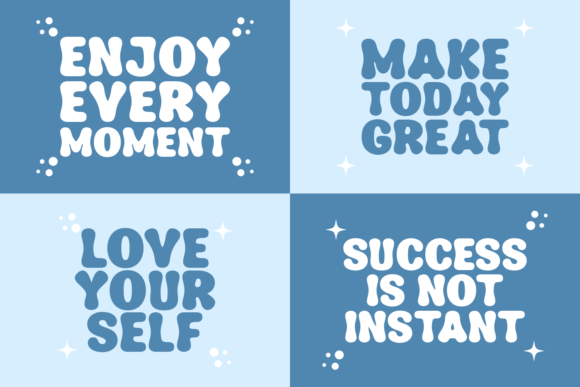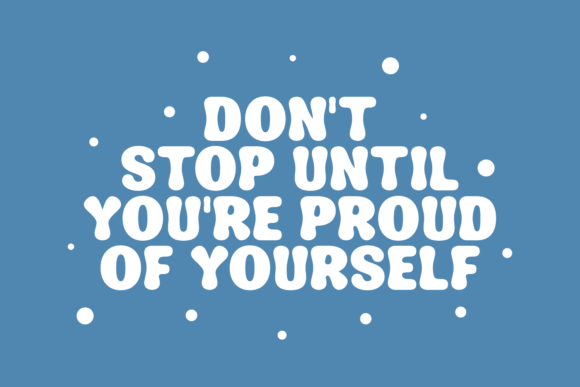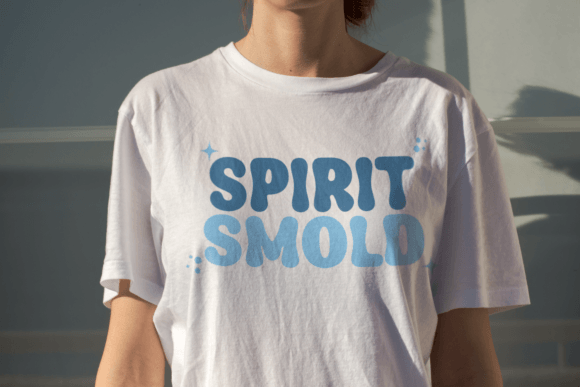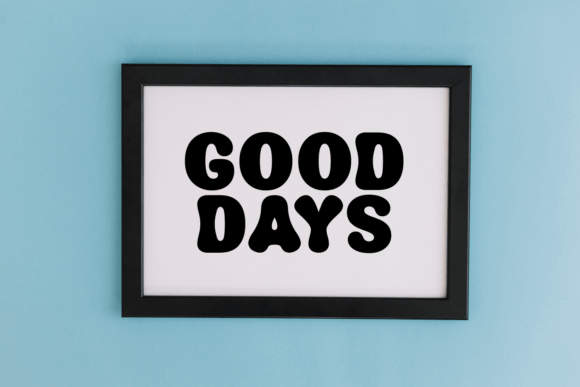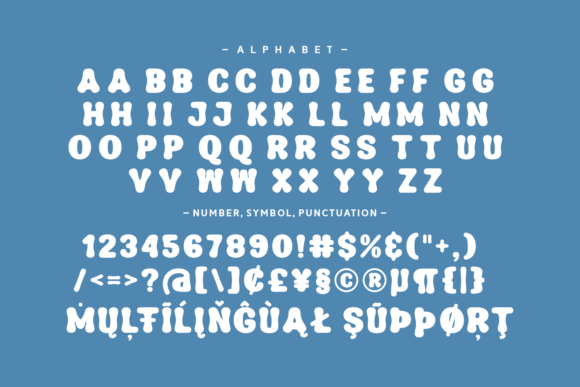
Discover the Joy of Becko Smold Font
You know that moment when you’re browsing through fonts and you stumble upon one that makes you smile? For designers, it’s a treasure hunt that can lead to some amazing creative breakthroughs. And that’s exactly what happened when we discovered the Becko Smold Font – a playful display font that’s sure to bring a touch of whimsy to any project.
Becko Smold Font is a delightful, chubby-looking font that’s perfect for adding a personal touch to branding, advertising, and more. Its versatility makes it an invaluable asset for designers, allowing them to create unique and eye-catching designs that stand out from the crowd. With its wide range of applications, from book covers to website headers, Becko Smold Font is a valuable addition to any designer’s toolkit.
- Unique Characteristics: Distinctive, hand-drawn style with intricate details and subtle texture, ideal for creative and artistic applications
Becko Smold Font Review
Overall, I’m impressed with the unique charm of the Becko Smold Font. Here’s what I like about it:
- ✨ Beautifully hand-drawn feel, perfect for adding a touch of whimsy to designs.
- ✨ A wide range of characters, including punctuation and symbols, making it suitable for everyday use.
- ✨ Highly customizable, with many OpenType features and ligatures.
- ⚠️ The font can be quite dense, making it difficult to read at smaller font sizes.
- ⚠️ Some characters may not render correctly in certain software or environments.
- ⚠️ The font is not optimized for large blocks of text, which can lead to readability issues.
Overall, the Becko Smold Font is a great choice for designers looking to add a touch of personality to their projects. While it may have some limitations, its unique charm and high level of customization make it a valuable addition to any font library.
The Becko Smold Font is ideal for creative and artistic projects, such as:
- Graphic design
- Typography-based art
- Brand identity design
For optimal results, use the Becko Smold Font in conjunction with bold and bright colors to create striking visuals.